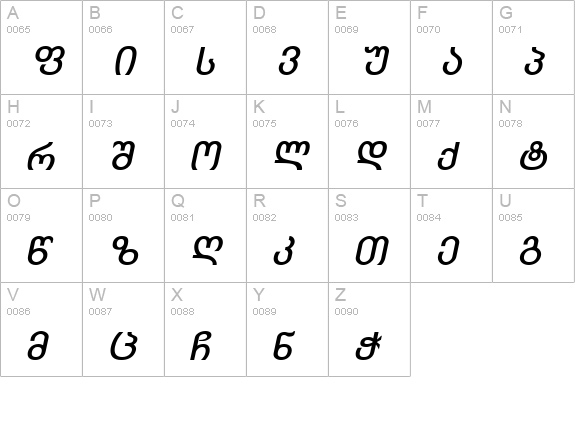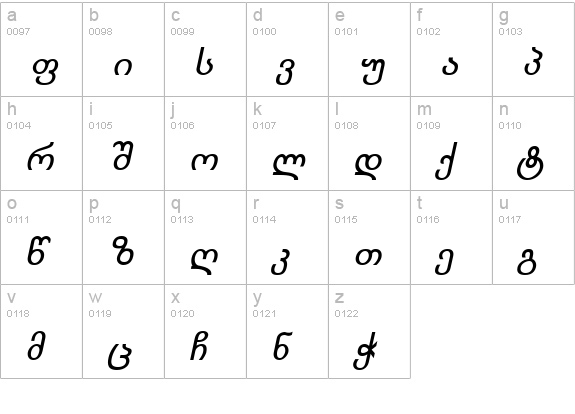
Kolkhety-ITV Bold Italic Font Details
Kolkhety-ITV Bold Italic is a strong, high-contrast, italic variant in the Kolkhety typeface family \xE2\x80\x94 well suited to headlines, attention-grabbing titles, and strong calls-to-action.
Kolkhety-ITV Bold Italic font is a stunning display font that exudes elegance and sophistication. Its bold and italic design commands attention and adds a touch of modernity to any project. The unique contrast between thick and thin strokes creates a captivating visual impact. This font is perfect for creating eye-catching headlines, logos, and branding materials. It is versatile enough to be used in various design projects, from print to digital media. Kolkhety-ITV Bold Italic font truly stands out and makes a bold statement. Best of all, this font is completely free to download at FontsMarket.com. Simply visit the website and get your hands on this stylish font to elevate your designs to the next level. Don't miss out on the opportunity to enhance your creative projects with Kolkhety-ITV Bold Italic font today!